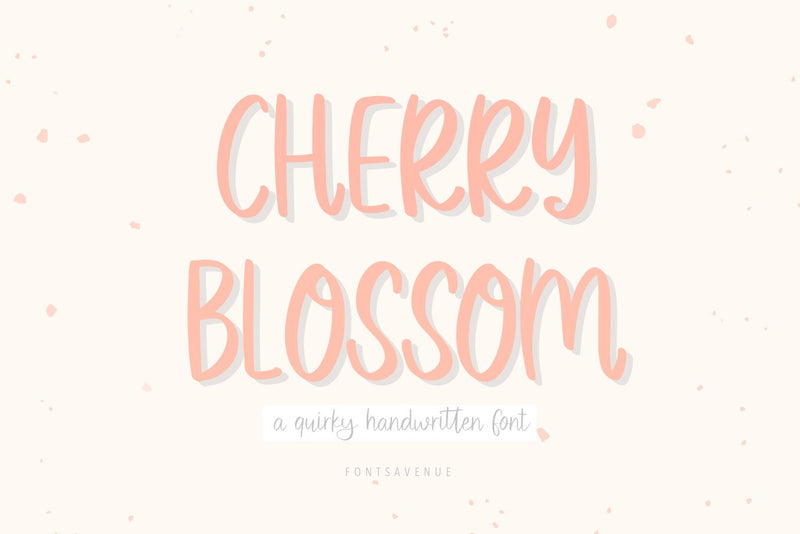
Cherry Blossom | Curly Handwritten Font
Cherry Blossom is a curly handwritten sans serif font, perfect for invitations, cricut designs, stickers, t-shirt design, quotes, procreate, etc.
Features
- Uppercase and lowercase letters
- Accented characters